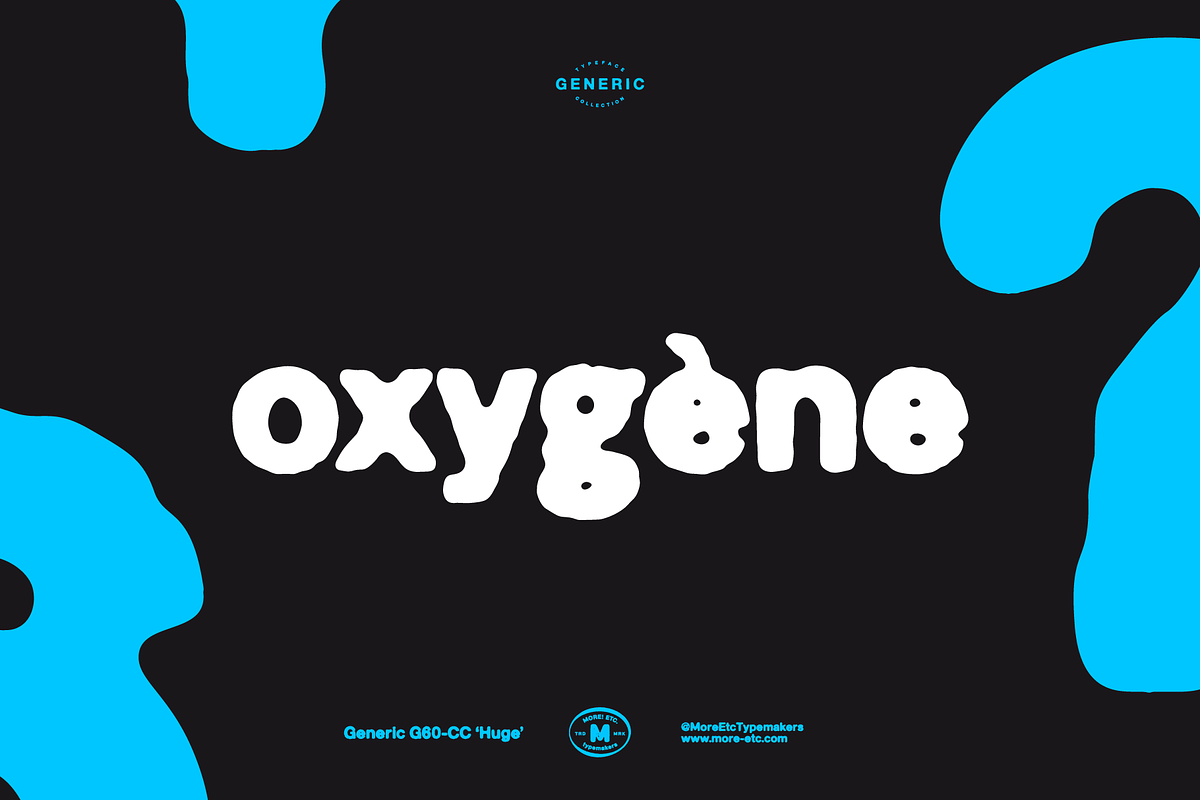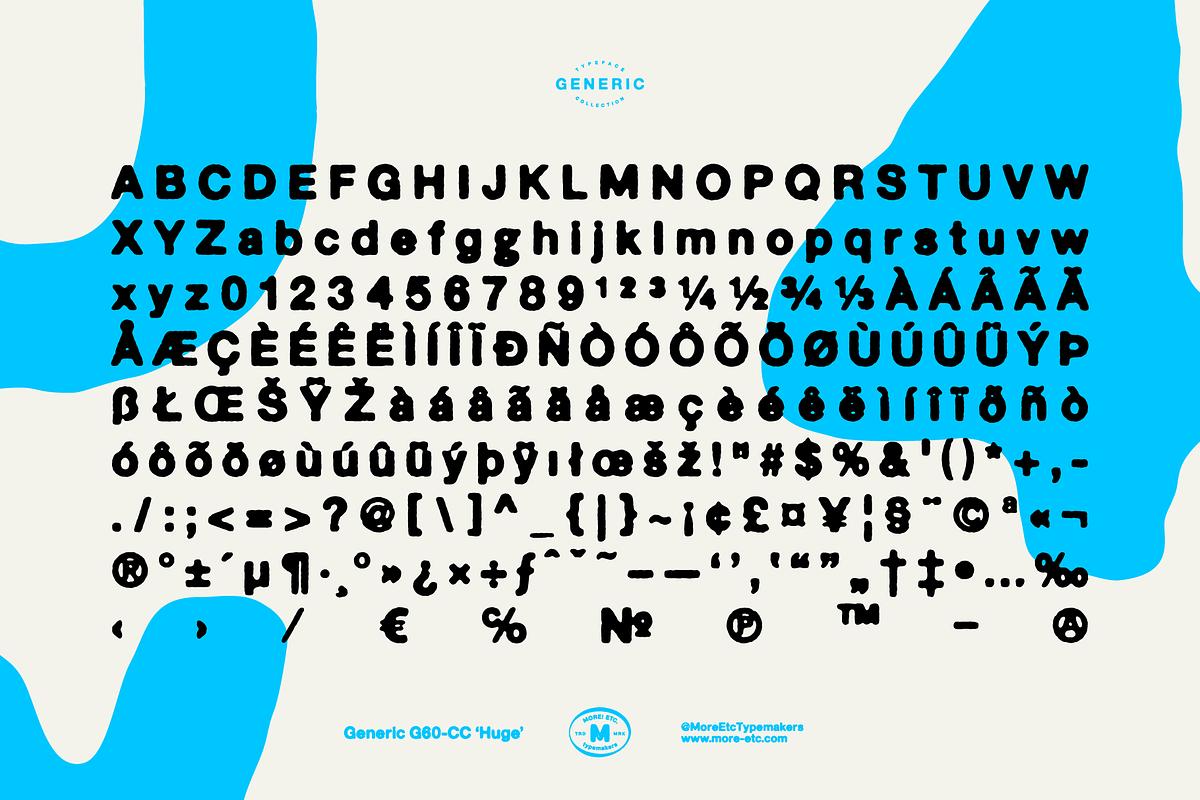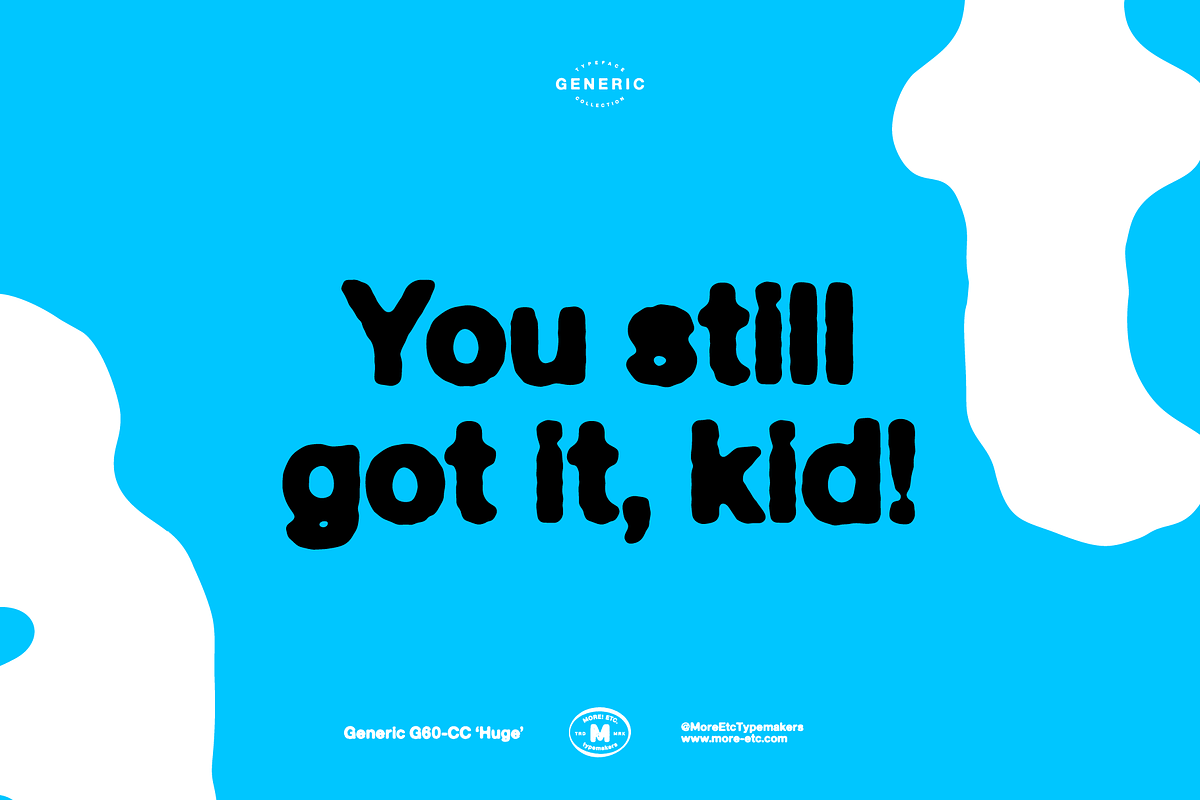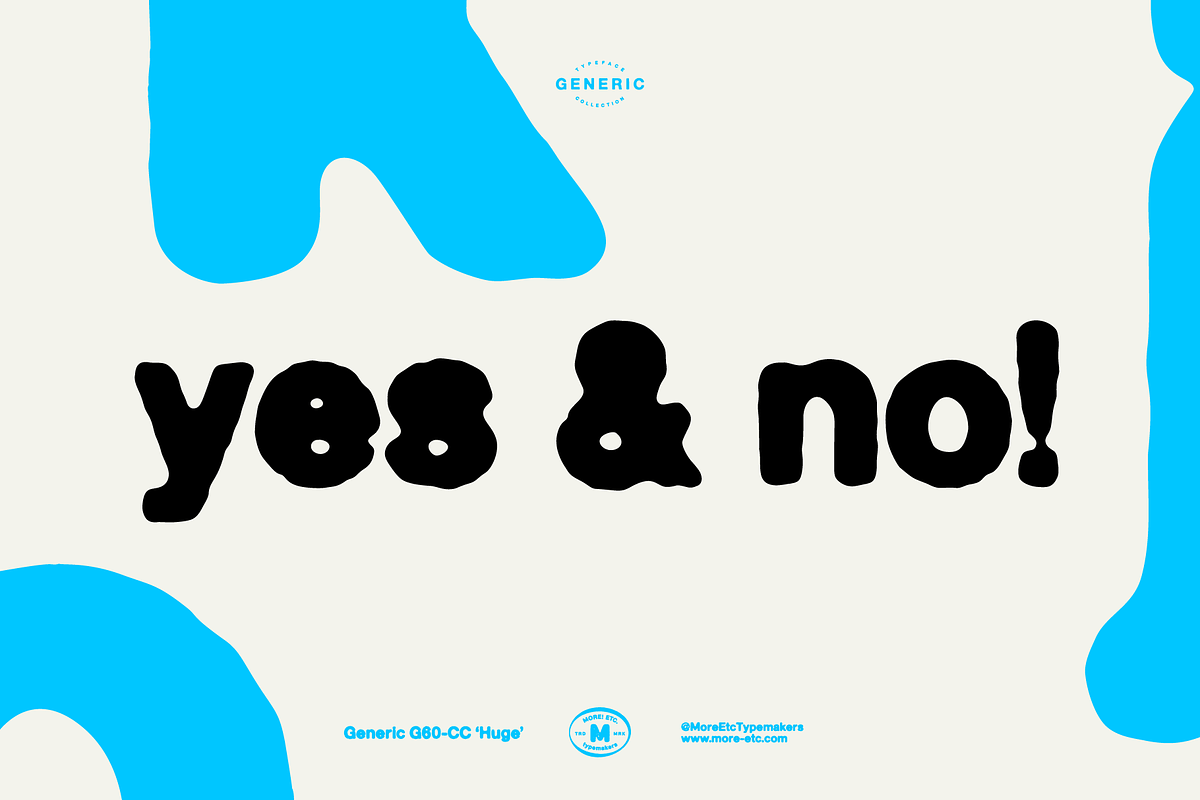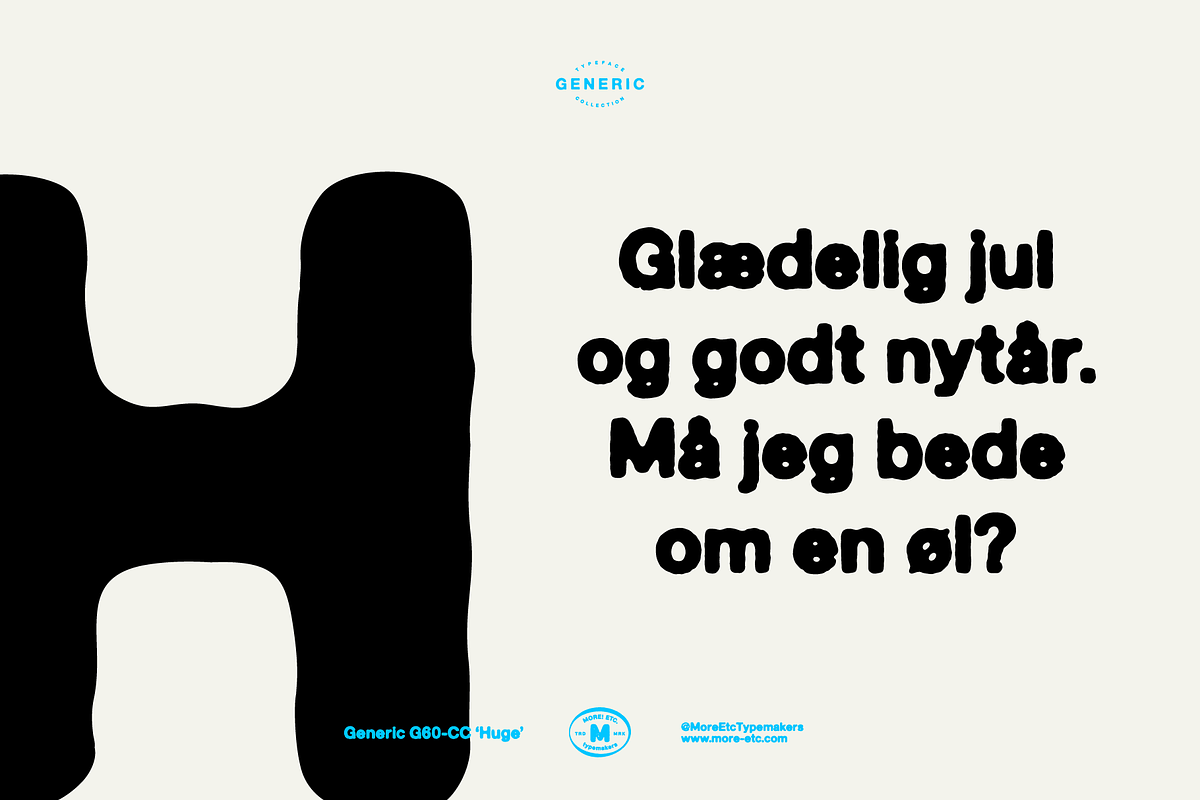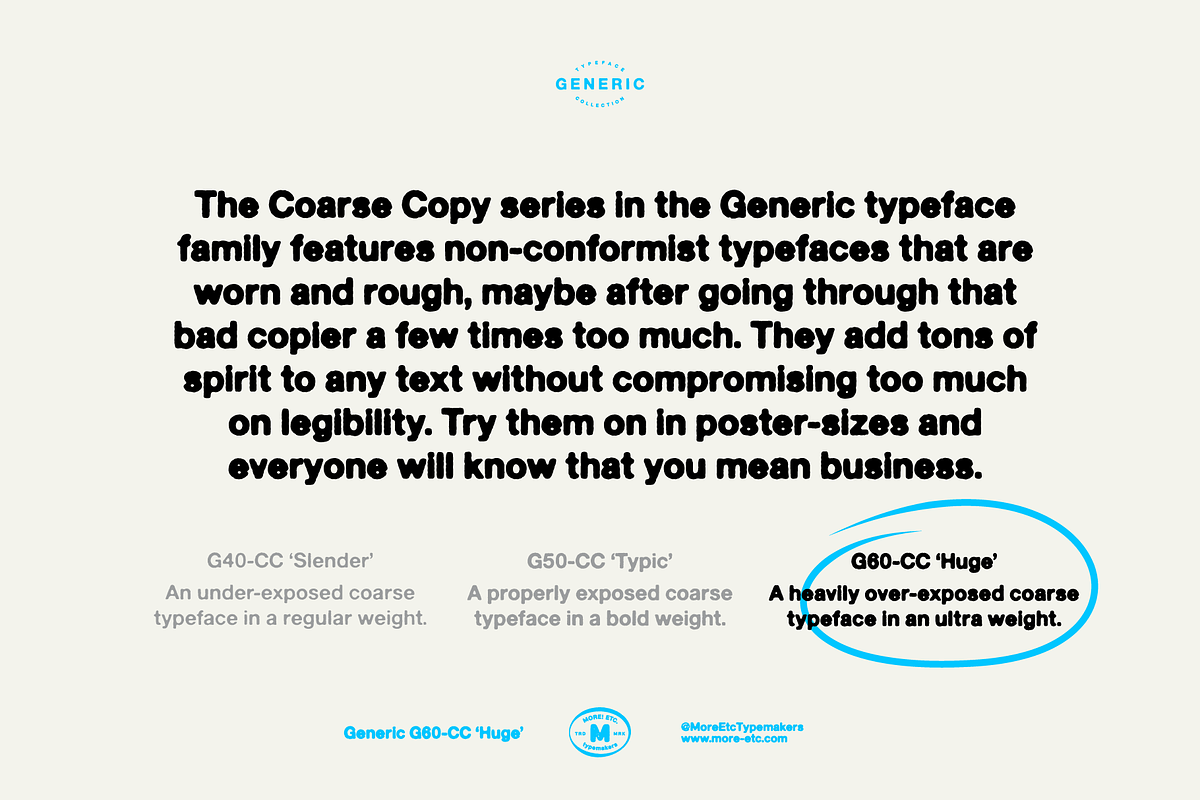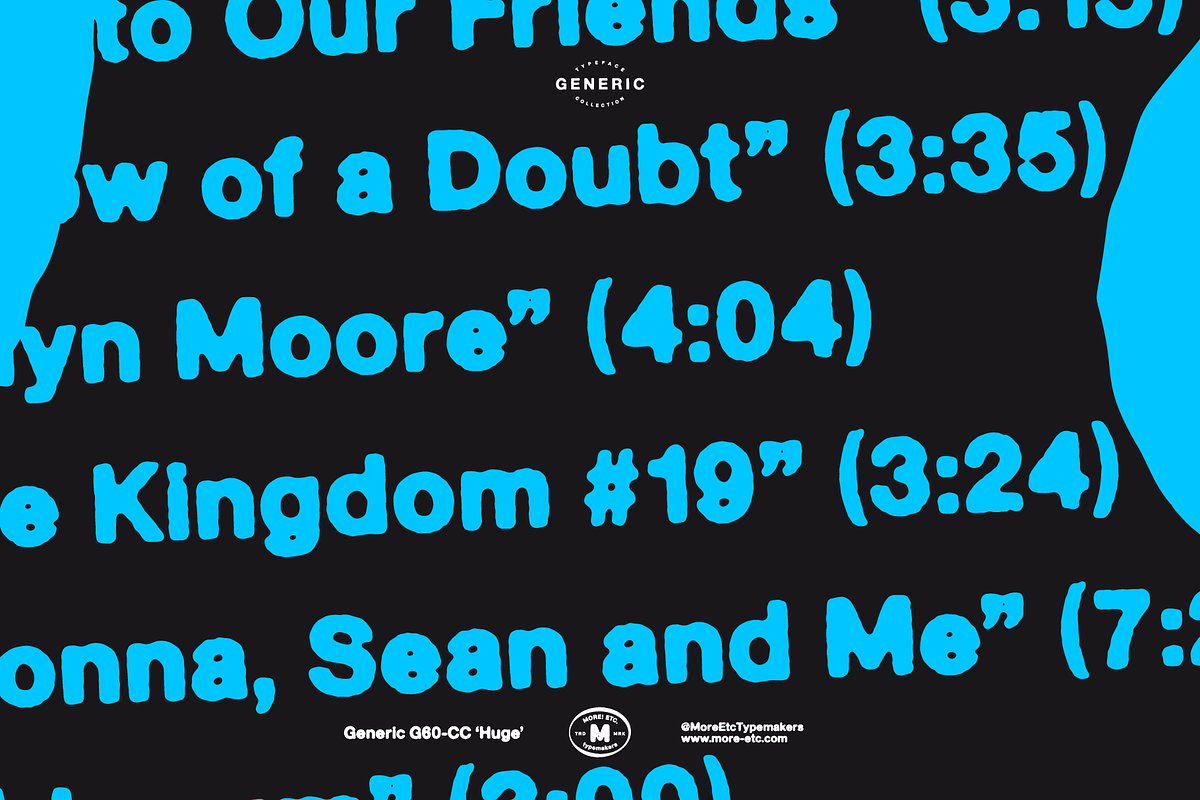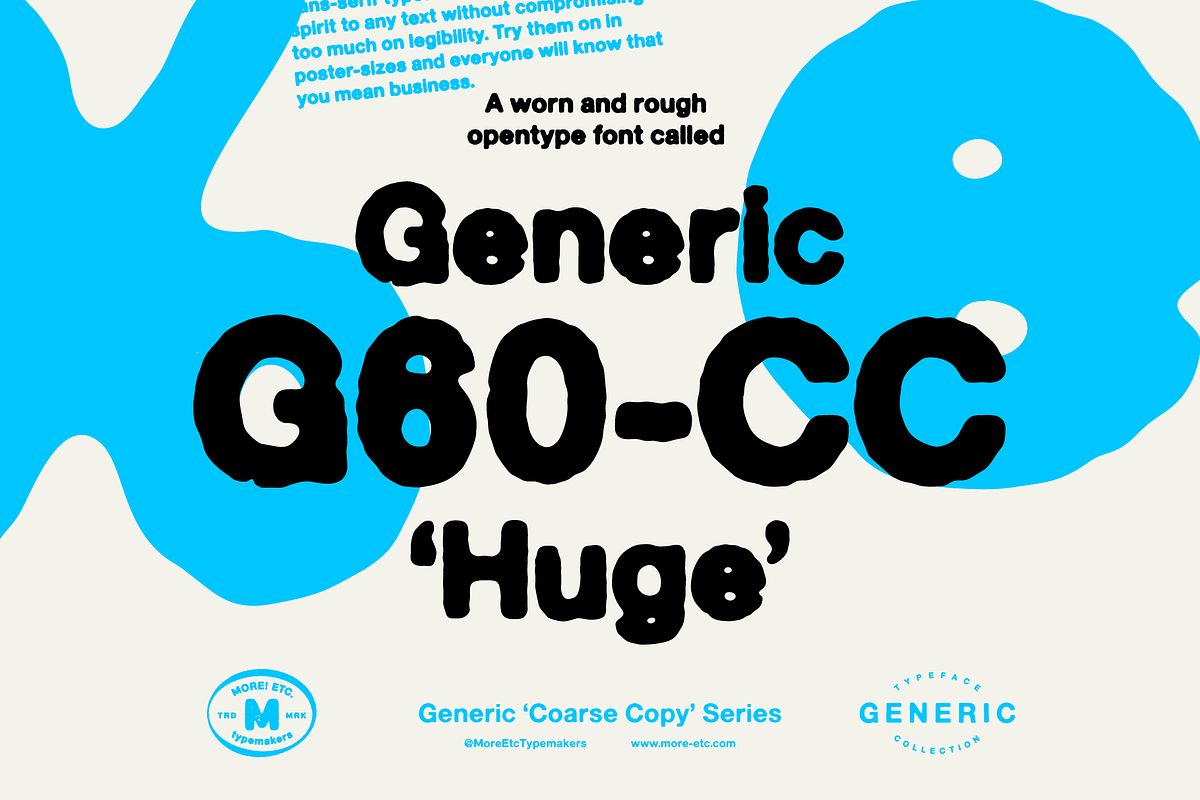
Generic G60-CC 'Huge'
Say hello to the Generic G60-CC 'Huge' typeface – a heavily over-exposed coarse typeface in an ultra weight. A display font full of spirit, personality and distinction.
The typeface is worn and rough, maybe after going through that bad copier a few times too much. This sans-serif typeface adds tons of spirit to any text without compromising too much on legibility. Try it in poster-sizes and everyone will know that you mean business.
Font summary:
- Worn and rough display font
- Tons of personality and a human appeal
- Ultra bold and over the top appearance
- 228 glyphs
- 1 alternate character
The Generic Typeface Collection is a series of sans-serif typefaces inspired by the craftsmanship of graphic design, typesetting, and printing in the analogue era – before Adobe, Macintosh computers and desktop publishing – when dinosaurs ruled the earth. This is an attempt to incorporate spirit and personality into a set of typefaces without losing distinction. You might call it a homage to non-perfection. I call it human.
The Generic Typeface Collection consists of 11 fonts divided into four series. The three standard series – the Formal Release series, the Coarse Copy series, and the Rough Display series – all contain three fonts each. The Extra Splendor series contains a couple of shadow fonts for that little extra sparkle.